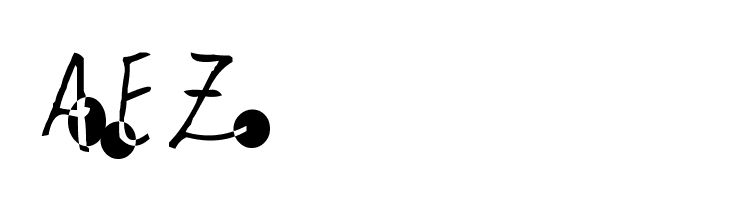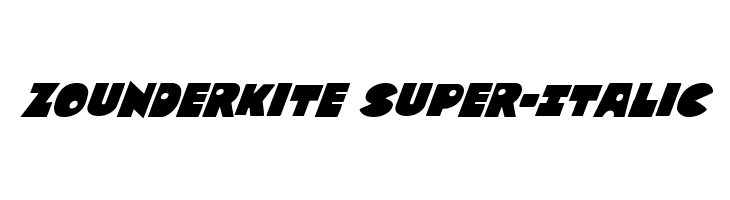
A bold, artistic font with circular elements and dynamic strokes.
A geometric, angular font with a futuristic and minimalistic design.
A bold, playful, hand-drawn font with rounded edges and a whimsical style.
A bold, italic font with a dynamic and modern style, featuring sharp angles and strong geometric forms.
An elegant, decorative font with whimsical swirls and cursive elements.
A clean, modern sans-serif font with smooth curves and uniform stroke width.
A geometric, abstract font with futuristic and robotic aesthetics.
An elegant, thin script font with graceful, flowing strokes.
A bold, italic, 3D font with a modern and edgy style.